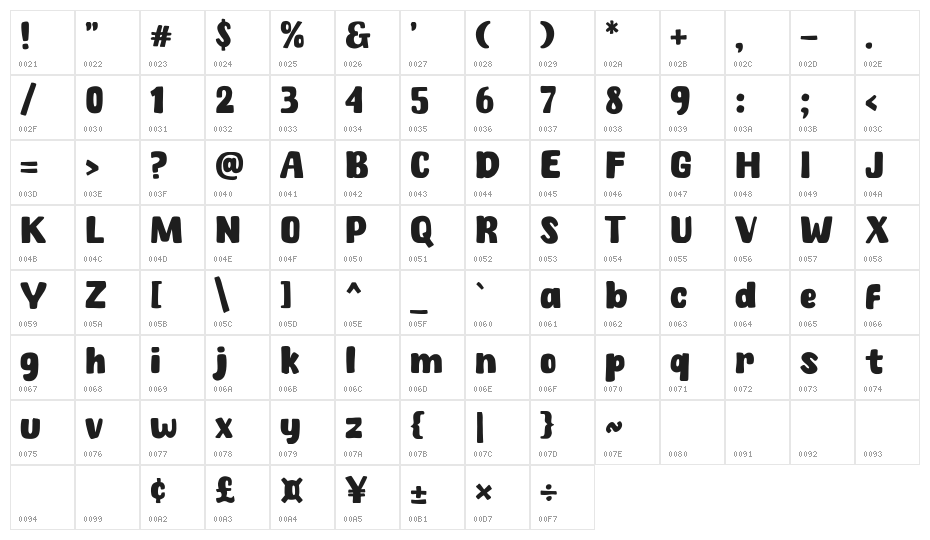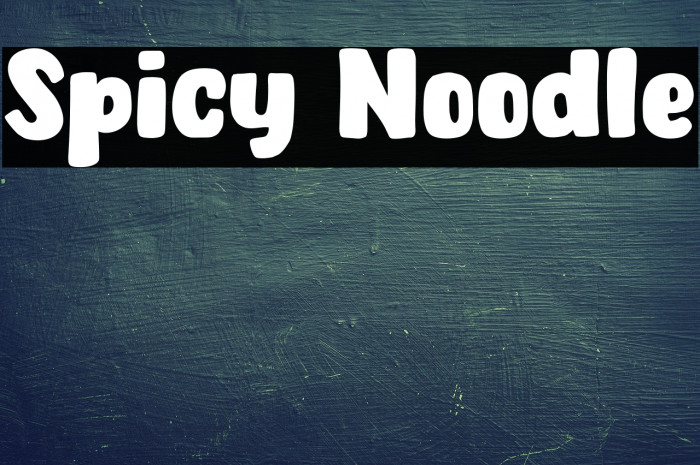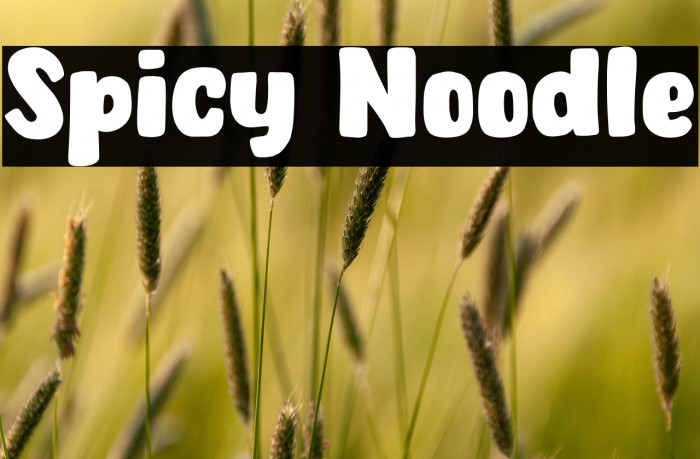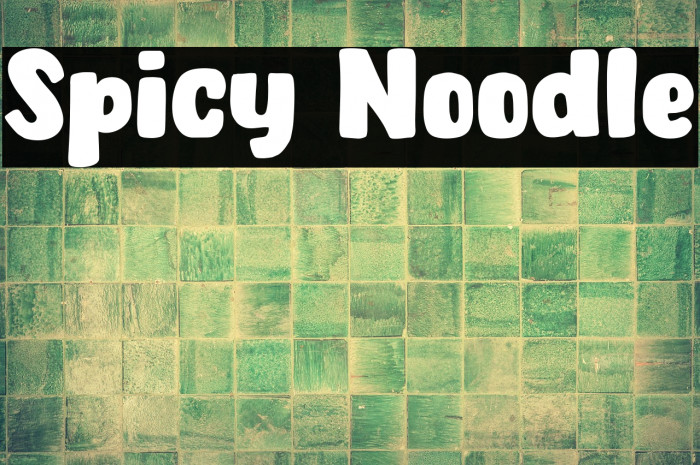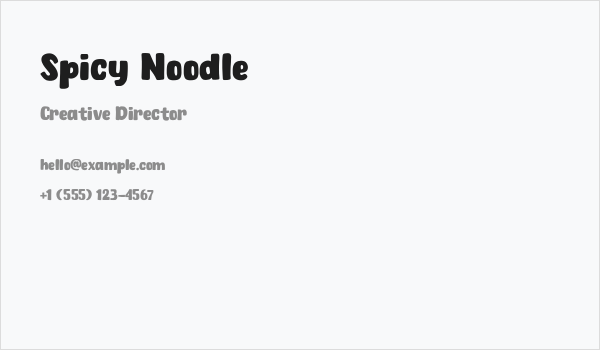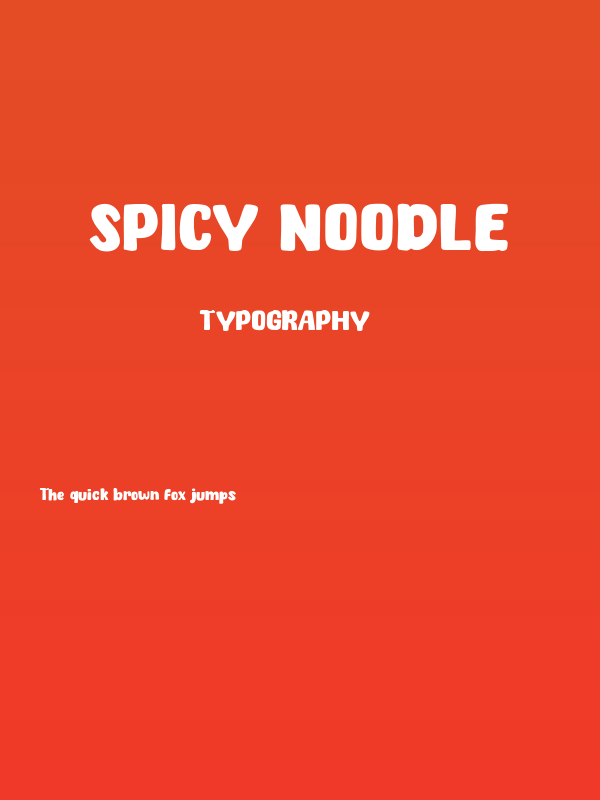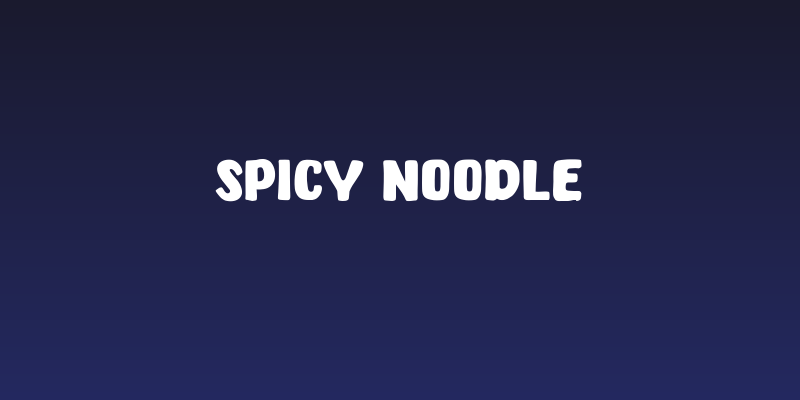
Spicy Noodle Font
Spicy Noodle Description
This font features a bold and playful style with thick, rounded strokes that give it a friendly and approachable appearance. The characters are slightly irregular, adding a whimsical touch that makes it stand out. The uppercase and lowercase letters maintain a consistent weight, contributing to a cohesive look. The numerals and special characters are designed with the same playful aesthetic, ensuring uniformity across all elements. This font is ideal for projects that require a fun and engaging visual impact.
| Proposed Projects | Perfect for children's books, playful branding, posters, and social media graphics. |